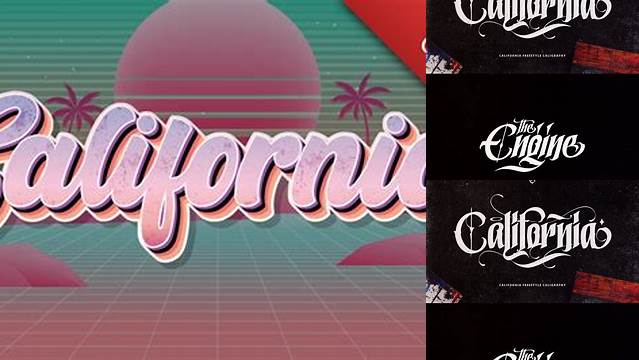
California Freestyle Font Generator: Create Cool Text!
Hey guys! Ever wanted to create some super cool text that looks like it came straight out of California? Well, you're in the right place! We're diving deep into the world of California Freestyle font generators, exploring everything from what they are to how you can use them to spice up your designs. Get ready to unleash your creativity and make your text stand out from the crowd!
What is California Freestyle Font?
Before we jump into the generators themselves, let's understand what California Freestyle font actually is. This font embodies the laid-back, artistic vibe of California. Think sunshine, beaches, and a whole lot of creativity! The letters often have a flowing, hand-drawn feel, making them perfect for designs that need a touch of personality and a relaxed, yet stylish aesthetic. It's not just a font; it's a mood!
Understanding California-Style Lettering
To truly appreciate the California Freestyle font, you have to understand the essence of California-style lettering. This lettering style is all about capturing the free-spirited, artistic energy of the Golden State. Imagine the vibrant murals of Los Angeles, the cool surf posters from the 60s, and the hand-painted signs you see along the Pacific Coast Highway. That's the inspiration behind it! It’s a blend of retro vibes, modern flair, and a touch of rebellious creativity. It's a style that's both timeless and effortlessly cool, perfect for making a statement without trying too hard. When you're using or creating this style, think about fluidity, natural strokes, and a sense of movement. That's the key to nailing the California look!
Exploring Online Font Generators
Okay, so you're itching to create some cool text, right? That’s where online font generators come in handy. These tools are super easy to use and require no fancy software. Just type in your text, choose the California Freestyle style (or something similar), and boom! You have instant stylized text. Many generators also let you tweak the size, color, and other effects, giving you even more control over your design. They are fantastic for quick mockups, social media posts, or even just experimenting with different looks. Plus, they're usually free, which is always a win!
Free California Freestyle Font Tools
Speaking of free, let's talk about some free California Freestyle font tools you can find online. Several websites offer generators that let you create text in this style without spending a dime. Just do a quick search, and you'll find a bunch of options. Look for tools that offer customization options, like different font weights, sizes, and colors. Some even let you add effects like shadows or outlines. Keep in mind that the quality can vary, so it's always a good idea to try a few different tools to find one that you really like. Happy creating!
Using California Fonts in Graphic Design
If you're serious about design, you'll want to know how to effectively use California fonts in graphic design. These fonts are perfect for projects that need a touch of personality and a relaxed vibe. Think posters, logos, website headers, and social media graphics. When using California Freestyle fonts, make sure to pair them with complementary fonts that don't clash. Simple, clean sans-serif fonts often work well as supporting text. Also, pay attention to the overall color palette and imagery to ensure they match the California vibe. Sunshine yellows, ocean blues, and sandy browns can all help create a cohesive and visually appealing design. And most importantly, have fun with it! Let your creativity shine and don't be afraid to experiment.
Designing Logos with California Freestyle
When it comes to designing logos with California Freestyle, you're aiming for a unique and memorable look. This font style can give your logo a handcrafted, personal touch that sets it apart from the competition. However, it's crucial to use it strategically. Consider the overall brand identity and whether the font truly reflects the brand's values and personality. California Freestyle works well for businesses that want to convey a sense of creativity, freedom, and authenticity. Keep the logo design simple and uncluttered, allowing the font to take center stage. Experiment with different font weights and sizes to find the perfect balance. And always make sure the logo is legible and scalable, so it looks great both online and in print.
California Typography for Social Media
Want to make your social media posts pop? California typography is your secret weapon! This font style can instantly add a cool, laid-back vibe to your content, making it more engaging and shareable. Use it for creating eye-catching headers, quotes, and captions. Pair it with vibrant images and videos to create a cohesive and visually appealing aesthetic. On platforms like Instagram and Pinterest, where visual appeal is key, California Freestyle can help you stand out from the crowd. Just make sure to use it sparingly and consistently to maintain a cohesive brand image. And don't forget to optimize your text for readability on mobile devices!
Best Font Styles Similar to California Freestyle
Okay, so maybe you can't find the exact California Freestyle font you're looking for. No worries! There are plenty of similar font styles that can give you the same vibe. Look for fonts with a hand-drawn feel, flowing lines, and a touch of retro flair. Script fonts, brush fonts, and even some casual sans-serif fonts can work well. Experiment with different options until you find one that captures the essence of California Freestyle. Websites like MyFonts, Creative Market, and FontShop are great resources for finding unique and stylish fonts. And don't be afraid to mix and match different fonts to create a unique and personalized look!
So there you have it! Everything you need to know about California Freestyle font generators and how to use them to create awesome text. Now go out there and start designing! Remember to have fun, be creative, and don't be afraid to experiment. Who knows, you might just create the next big font trend!